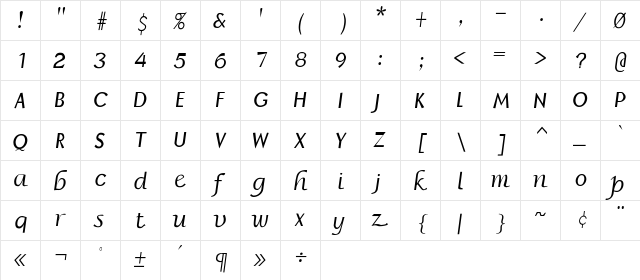
Granby Italic Lite Regular
Design Context for Granby Italic Lite Typeface
Granby Italic Lite offers clean, dependable letterforms without strong stylistic allegiance, making it a practical choice for designers who need flexibility. The slanted form adds forward momentum and visual energy.
Pro Tip: Try Granby Italic Lite for annotation and caption copy alongside an upright companion — the contrast in angle creates a dynamic but ordered typographic system.